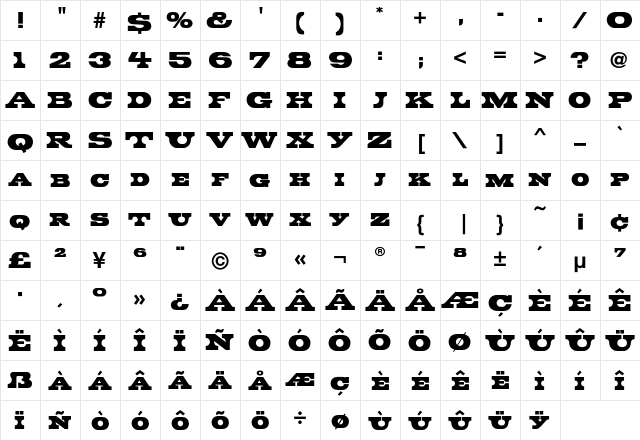
Giorgio-Normal Regular
Design Context for Giorgio-Normal Typeface
Giorgio-Normal offers clean, dependable letterforms without strong stylistic allegiance, making it a practical choice for designers who need flexibility.
Pro Tip: Pair Giorgio-Normal with a font of contrasting weight or personality to build a more expressive typographic hierarchy.